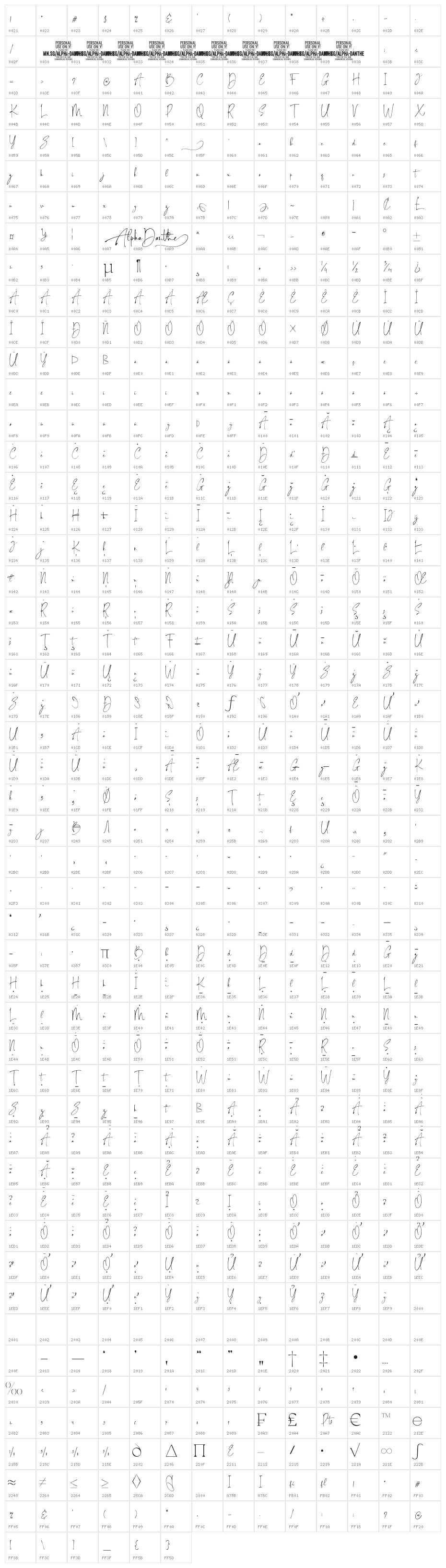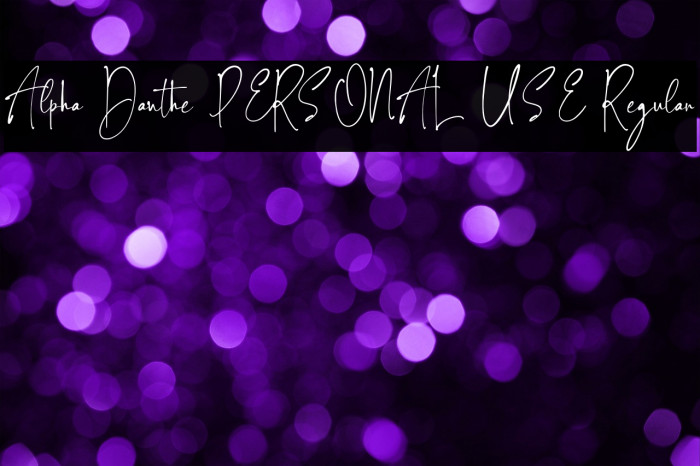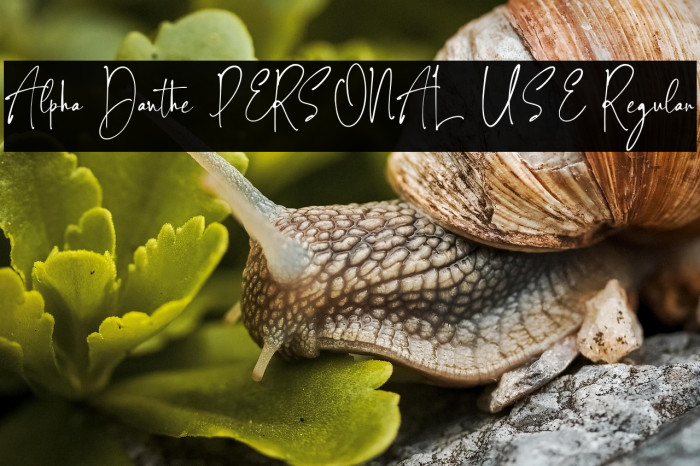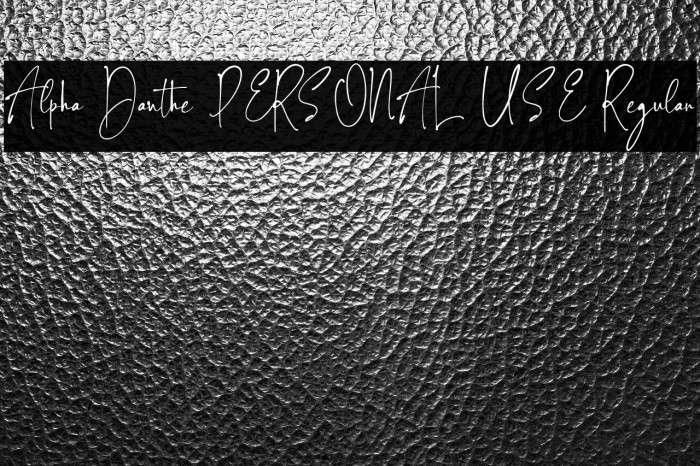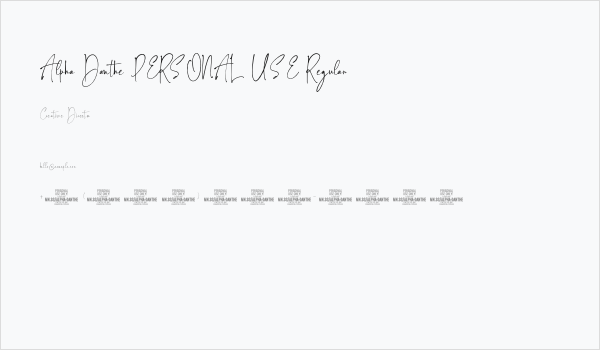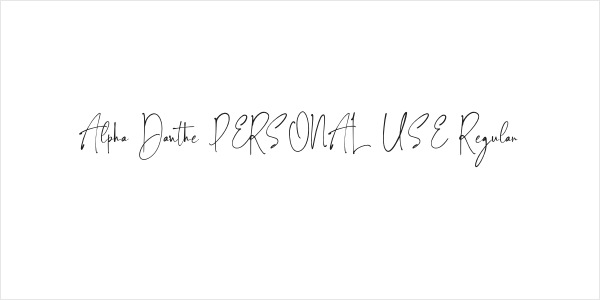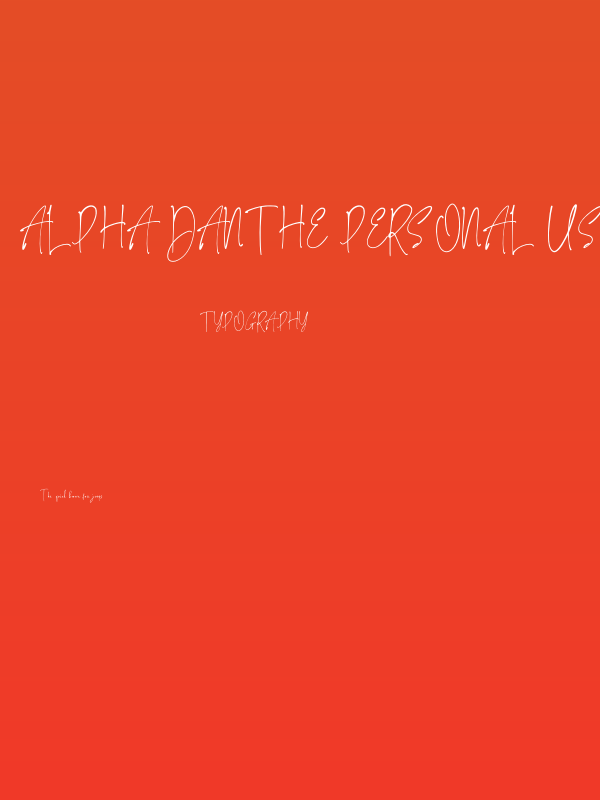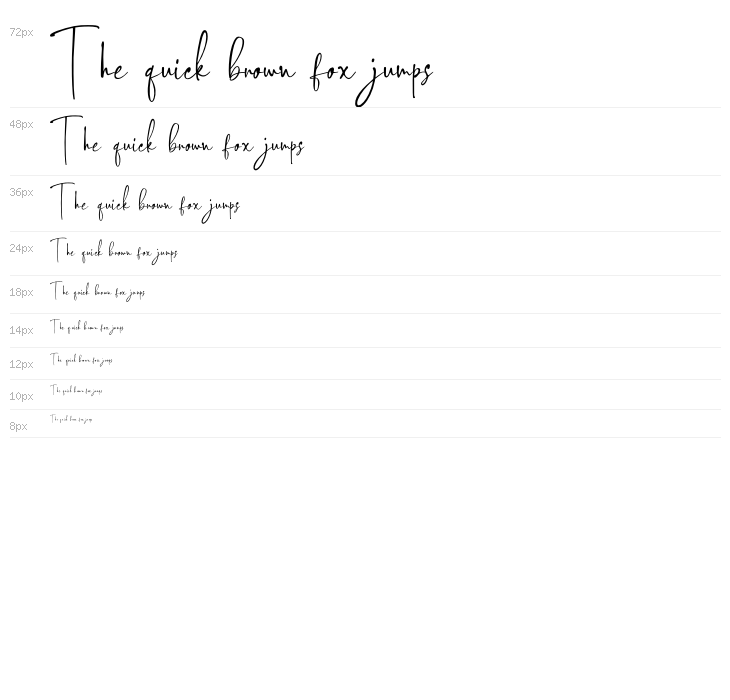
Alpha Danthe PERSONAL USE Regular Font
Alpha Danthe PERSONAL USE Regular Description
This font features an elegant and flowing handwritten style, characterized by its thin, delicate strokes and graceful curves. The uppercase letters exhibit a tall and narrow form, while the lowercase letters maintain a consistent fluidity, enhancing the overall aesthetic. The font includes a full set of uppercase and lowercase letters, numerals, and a variety of special characters, making it versatile for various design needs. Its artistic flair is evident in the unique letterforms, which convey a sense of sophistication and creativity. The spacing between characters is balanced, allowing for readability while maintaining its decorative appeal.